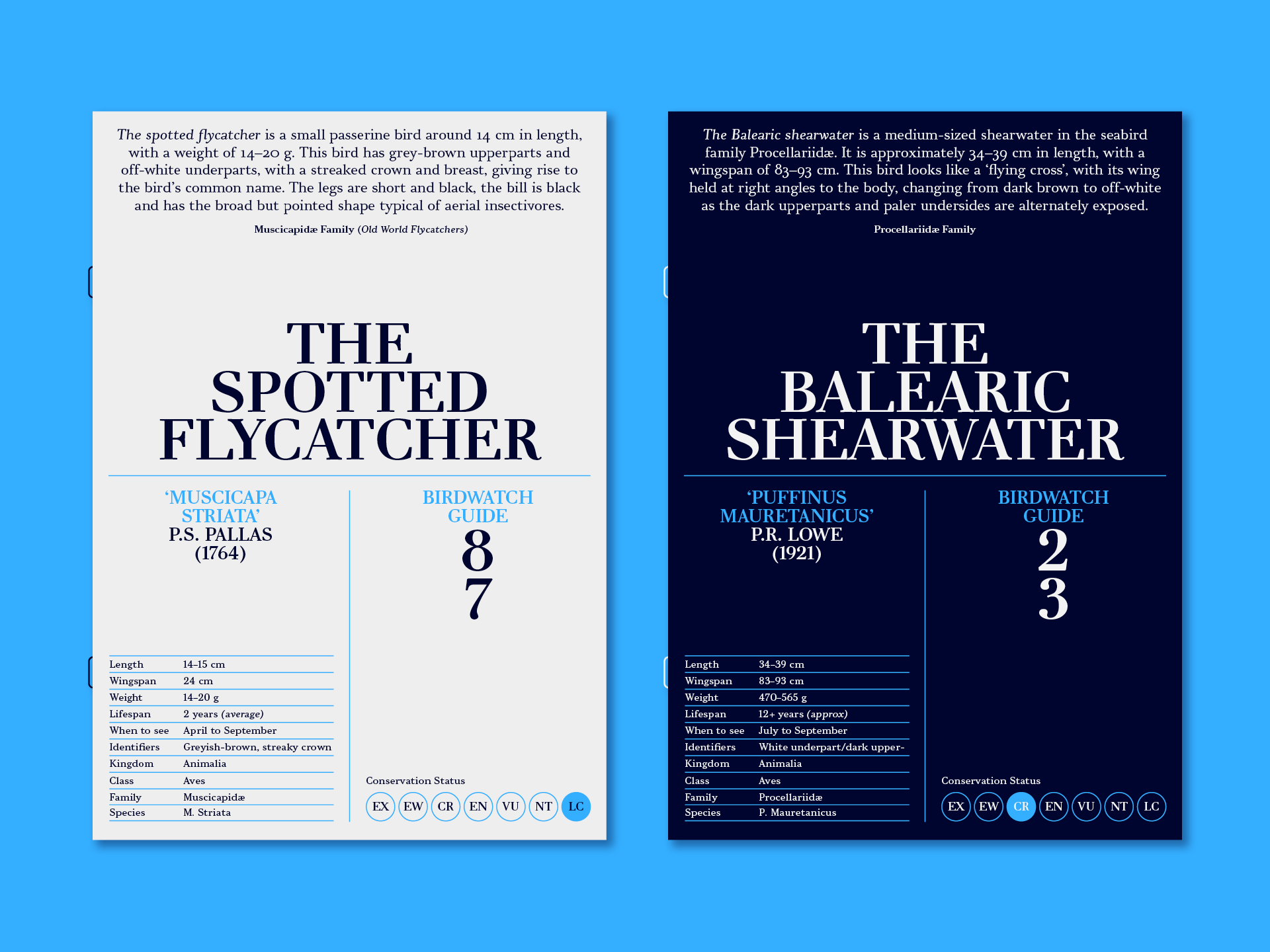
Pyke
Pyke is a versatile serif typeface inspired by the Didone style of Giambattista Bodoni. After a detailed legibility study, Sofie Beier produced the typeface in three optical sizes; Micro, Text, and Display. The work goes beyond historic revival creating the complexities and subtleties of this classic style fit for users in the modern era.
Details include six weights with true italics and specific sizes; Micro for small point sizes of 8 or less, Text for 9–14 points, and Display for larger print sizes, over 530 characters per style with 14 OpenType features, and language support for Western, Southern, and Central Europe.